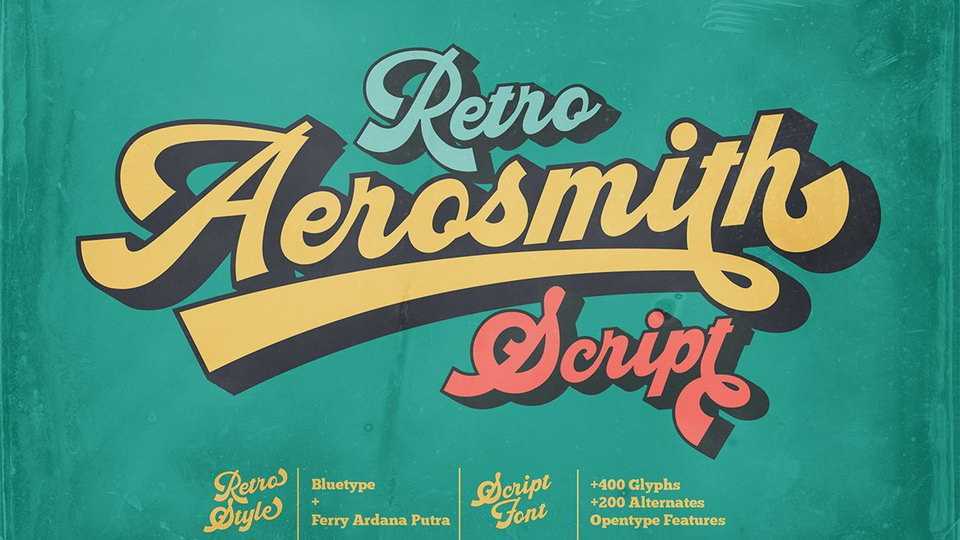
Download Aerosmith font a bold vintage script typeface to make a retro design with ease. Aerosmith is really perfect for logo design, t-shirt, vintage and retro badge, vintage quotes, branding, packaging, quote etc.
Designer: Bluetype